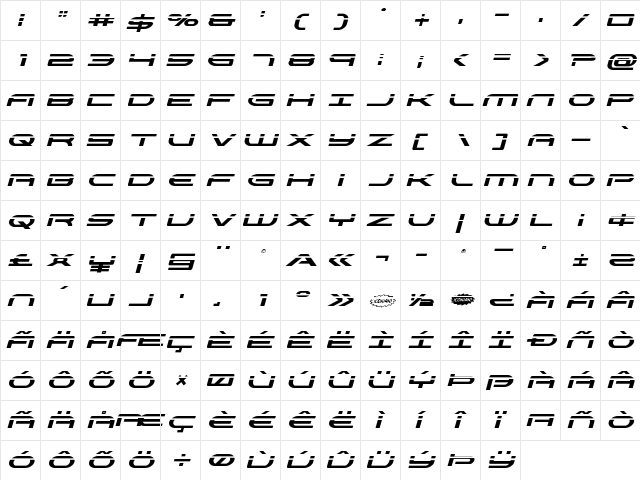
Antietam Laser Italic Italic
Design Context for Antietam Laser Italic Typeface
Antietam Laser Italic is a composed and adaptable typeface that performs quietly and consistently across a wide range of design contexts. Its italic angle brings a sense of urgency and motion to the letterforms.
Pro Tip: Use Antietam Laser Italic for emphasis, pull quotes, and subheadings where its slanted energy can add rhythm to the layout.